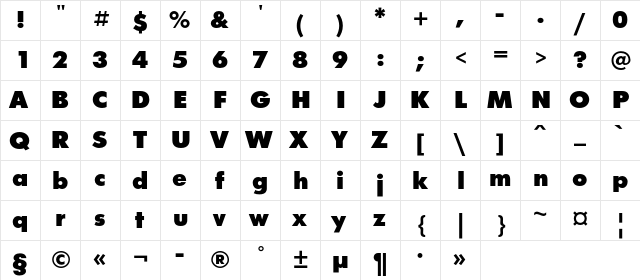
FuturaFuturisBlackC Regular
Design Context for FuturaFuturisBlackC Typeface
FuturaFuturisBlackC has a distinctly futuristic character, with geometric precision and clean angles that feel at home in technology, gaming, and sci-fi contexts.
Pro Tip: Try FuturaFuturisBlackC with generous letter-spacing in UI labels and navigation — the geometric forms benefit from room to breathe.